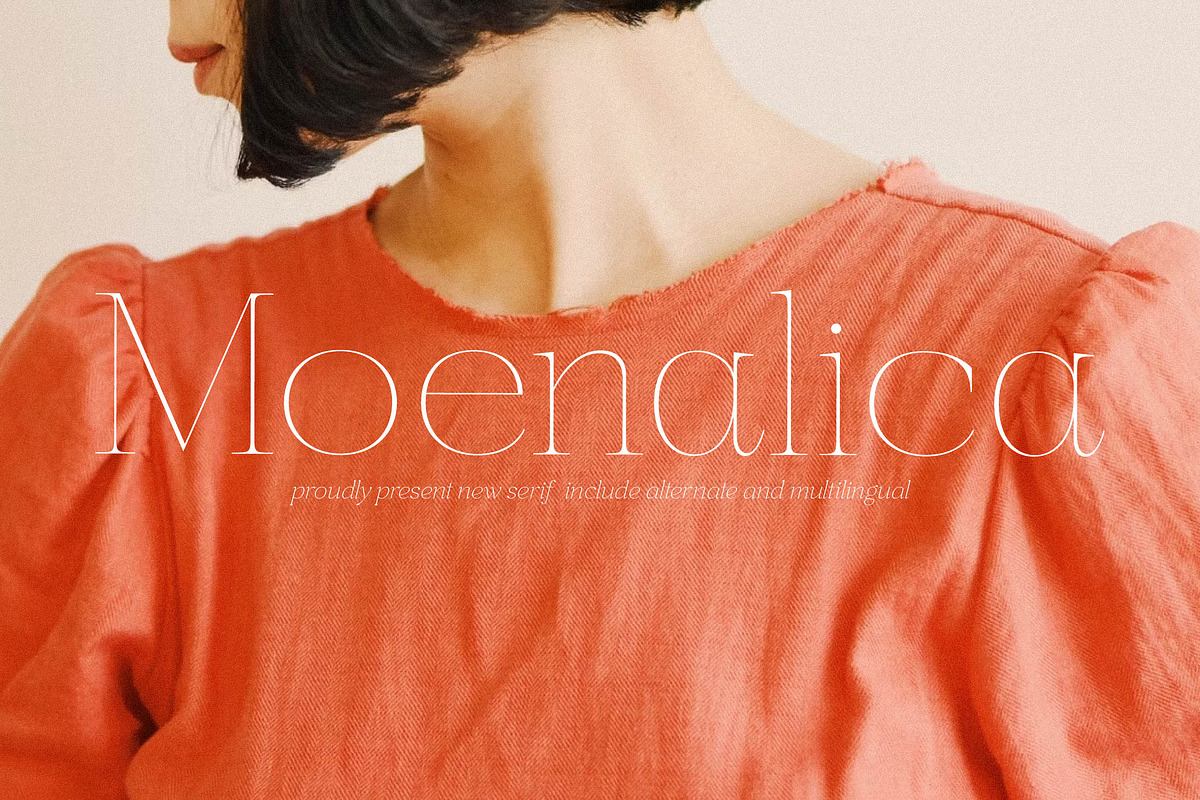
Moenalica Modern Serif Font Free Download
Moenalica Modern Serif Font Free Download is a sleek and sophisticated typeface that blends traditional serif elegance with a fresh, contemporary edge. With its clean lines, high contrast, and stylish curves, this font is perfect for editorial layouts, fashion branding, minimalist logos, and high-end packaging.
Designed for modern creatives, Moenalica delivers both refinement and versatility. Its well-balanced proportions and subtle details make it ideal for both headlines and body text, allowing your designs to feel luxurious and timeless.
Whether you're working on a personal portfolio, magazine spread, or elegant website, Moenalica Modern Serif Font Free Download offers a classy yet approachable vibe. Try out the demo today to see how this modern serif can elevate your next project with grace and professionalism.